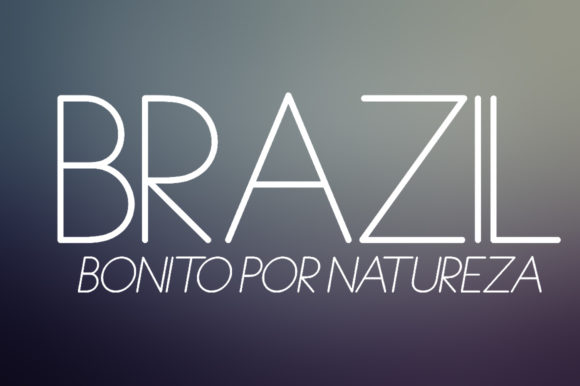
Discover the Versatility of Duase Font: A Geometric Monoline Sans-Serif Marvel
In the world of typography, fonts play a crucial role in conveying messages, evoking emotions, and creating brand identities. Among the numerous fonts available, Duase stands out as a unique and versatile geometric monoline sans-serif font. What makes Duase exceptional is its dual capability to serve as both a display and a readable font, making it an excellent choice for adverts, marketing materials, and various design projects.
What is Duase Font?
Duase is a thoughtfully crafted geometric monoline sans-serif font, characterized by its clean lines, simplicity, and modern aesthetic. The font’s design is inspired by the geometric shapes and clean lines that are often found in modern architecture and design. This inspiration translates into a font that exudes a sense of minimalism, sophistication, and elegance.
The Dual Nature of Duase: Display and Readable
One of the most significant advantages of Duase is its versatility. On one hand, it can be used as a display font to grab attention and make a bold statement. Its geometric lines and monoline structure give it a unique and eye-catching appearance, perfect for headlines, titles, and promotional materials. On the other hand, Duase is also highly readable, making it suitable for body text, articles, and other written content.
This dual capability is a result of meticulous design and attention to detail. The font’s creator has ensured that Duase remains legible even at smaller sizes, making it a practical choice for a wide range of applications, from digital media to print materials.
Applications of Duase Font
Duase’s versatility makes it an excellent choice for various design projects, including:
- Advertising and Marketing: Use Duase to create eye-catching headlines, slogans, and taglines that capture the audience’s attention.
- Branding and Identity: Establish a strong brand presence with Duase’s unique and memorable font style.
- Digital Media: Enhance your website, social media, or blog with Duase’s clean and modern aesthetic.
- Print Materials: Make a lasting impression with Duase on business cards, brochures, posters, and other print materials.
Why Choose Duase Font?
Duase offers several benefits that make it an attractive choice for designers and crafters:
- Unique and Modern Design: Stand out from the crowd with Duase’s distinctive geometric monoline sans-serif style.
- Versatility: Use Duase for both display and readable purposes, making it a valuable addition to your font library.
- Legibility: Ensure clear communication with Duase’s highly readable font, even at smaller sizes.
- Ease of Use: Duase is easy to integrate into your design workflow, making it a convenient choice for projects.
In conclusion, Duase font is a remarkable geometric monoline sans-serif font that offers a perfect blend of style, versatility, and readability. Its unique design and dual capabilities make it an excellent choice for a wide range of design projects, from advertising and marketing to branding and digital media. Whether you’re a designer, crafter, or simply a typography enthusiast, Duase is definitely worth exploring.